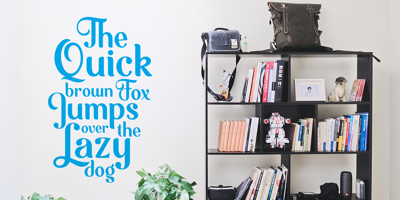
Bridgeta Free Download
Bridgeta Font Free Download
This elegant calligraphy font is perfect for wedding invitations, logos, t-shirts, letterheads, and posters, offering a sophisticated and charming aesthetic.
Bridgeta Font Free Download is exciting because its flowing, hand-drawn curves and intricate ligatures create a beautiful, classy look that captivates instantly.
The Bridgeta Font family includes Regular, with initials, terminal letters, alternates, and ligatures, providing versatility for diverse design projects.
Elevate your creative projects with the Bridgeta Font Free Download, a stunning calligraphy typeface designed by Nurul Kamal and published by Nk Studio. Its graceful, flowing letterforms and 389 glyphs, including initials, terminal letters, alternates, and ligatures, make it ideal for sophisticated designs like wedding stationery, branding logos, and social media graphics. This font’s elegant style and multilingual support ensure it shines in both print and digital applications, perfect for adding a charming, personalized touch.
What makes Bridgeta Font so captivating is its ability to blend classic calligraphy with modern versatility. The font’s smooth, curvaceous strokes create a sense of timeless beauty, making it a favorite for designers aiming to evoke sophistication and charm. Its PUA-encoded glyphs allow easy access to swashes and alternates, ensuring seamless customization for logos or invitations. This font is perfect for brands seeking an elegant, approachable identity.
The Bridgeta Font family offers a single Regular style packed with features like initials, terminal letters, alternates, and ligatures, providing ample creative flexibility. This allows designers to craft unique, eye-catching visuals for various contexts, from minimalist layouts to ornate designs. Download Bridgeta Font Free Download today to experiment with its graceful aesthetic and discover how it can transform your projects into something truly beautiful and memorable.